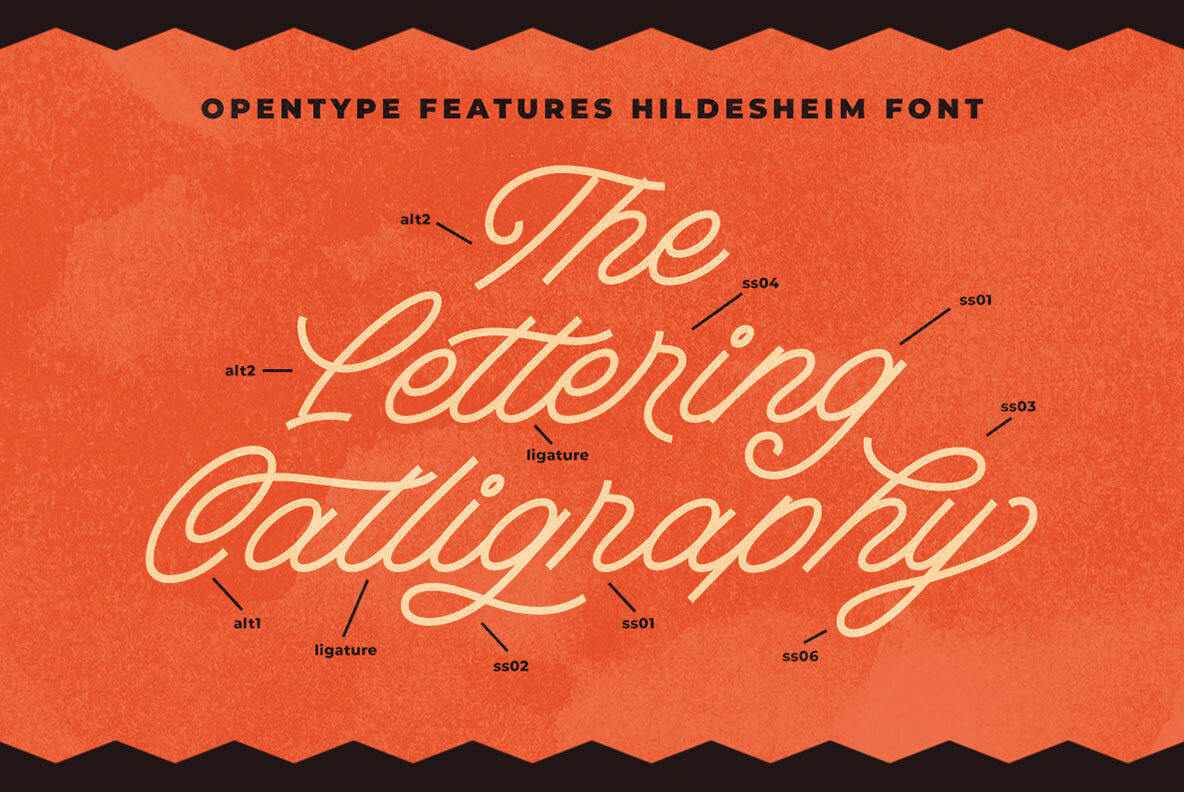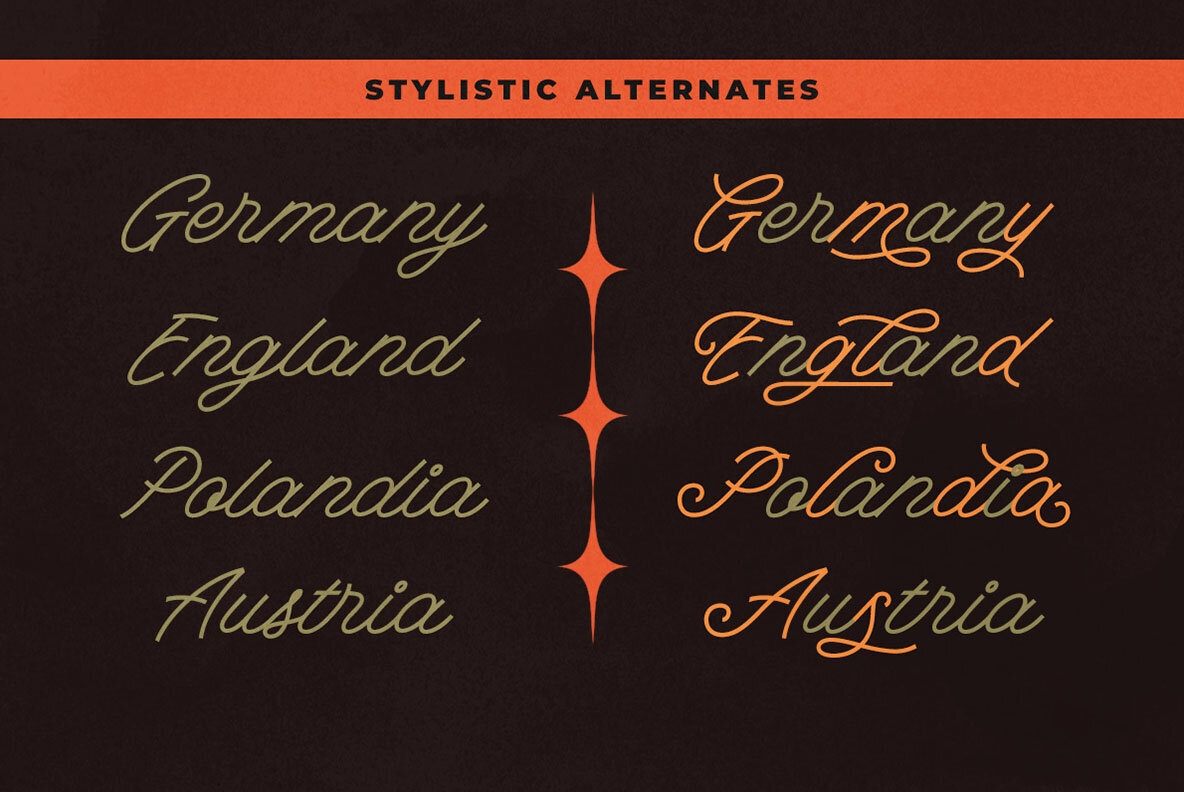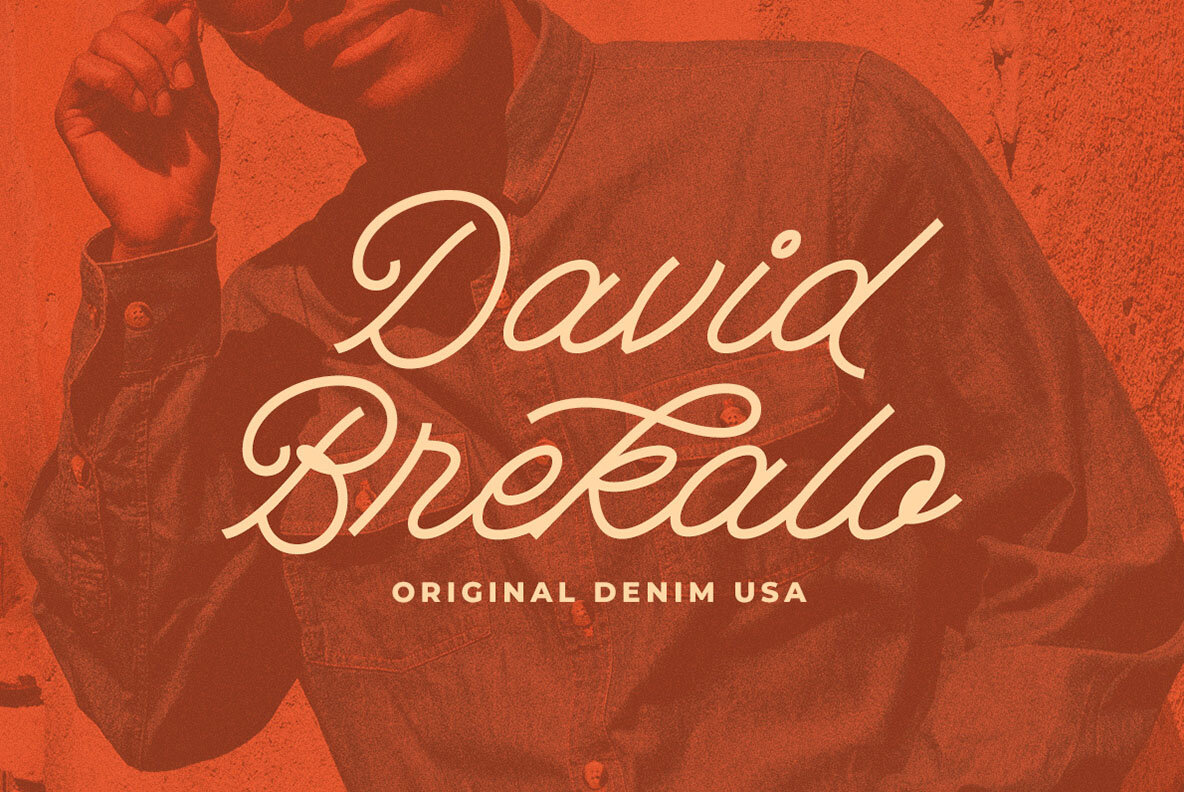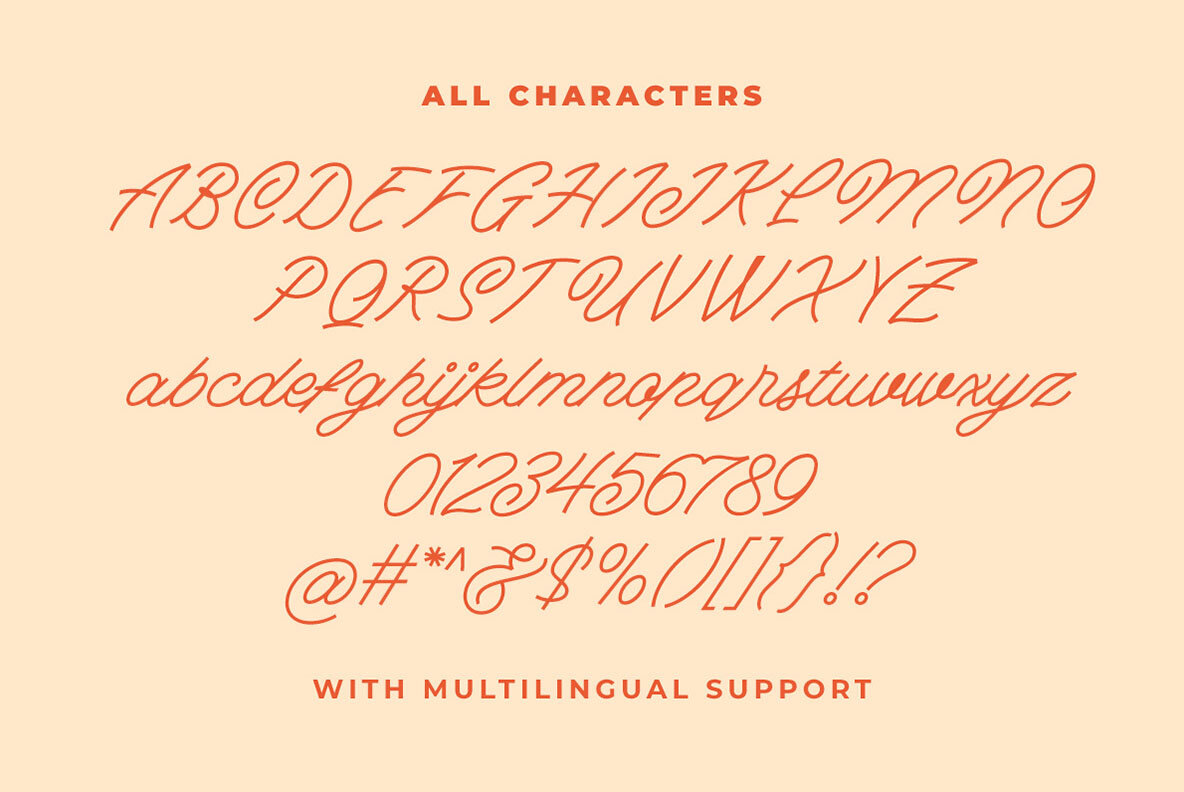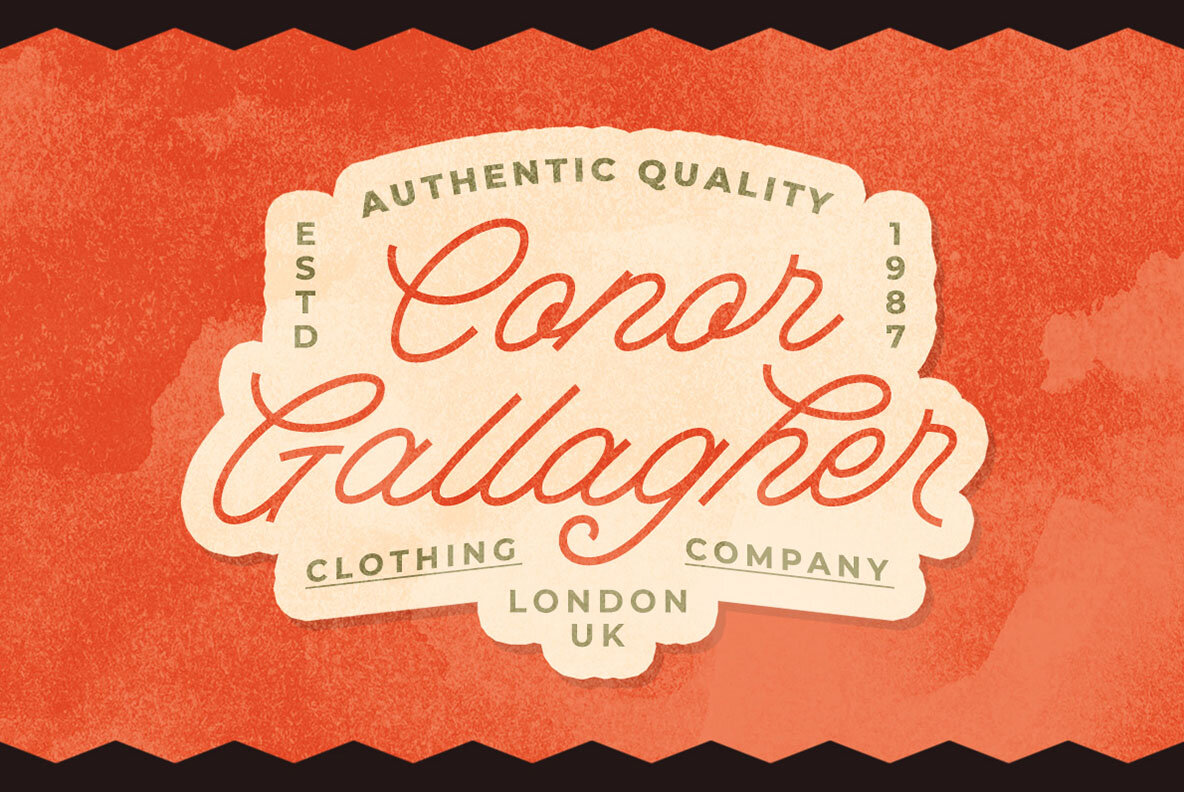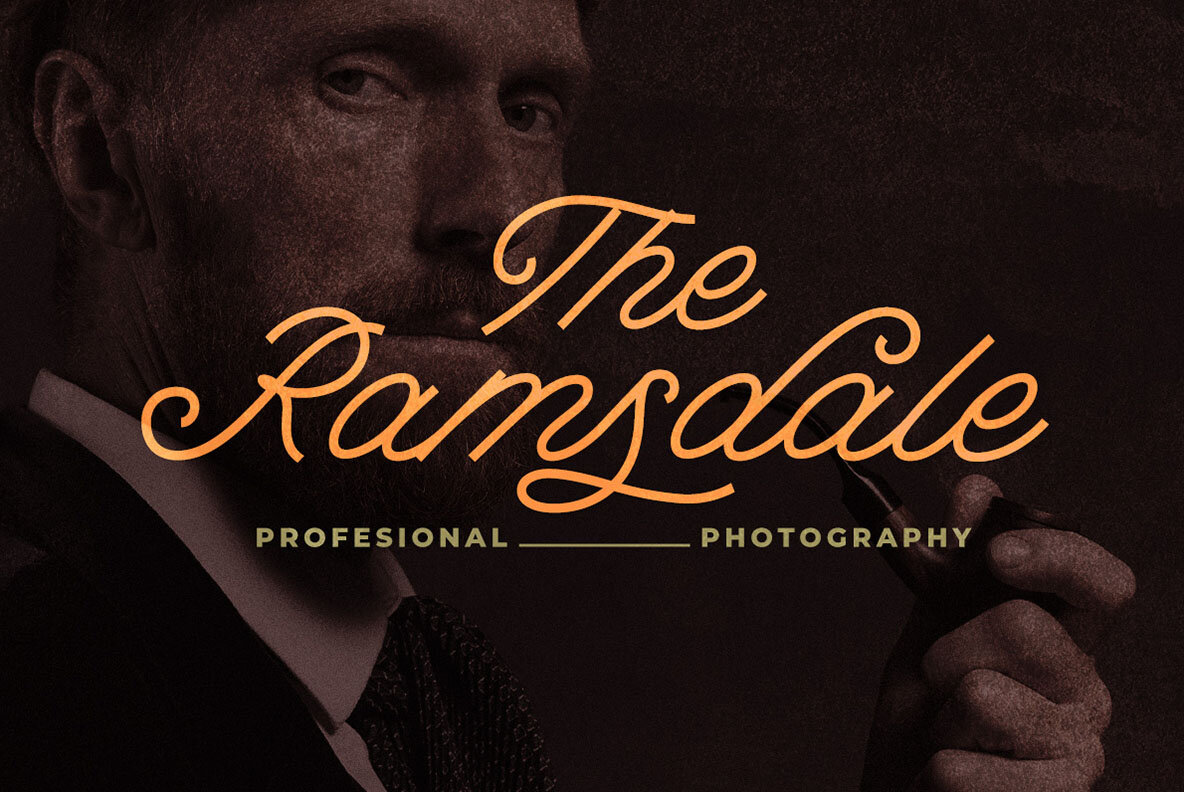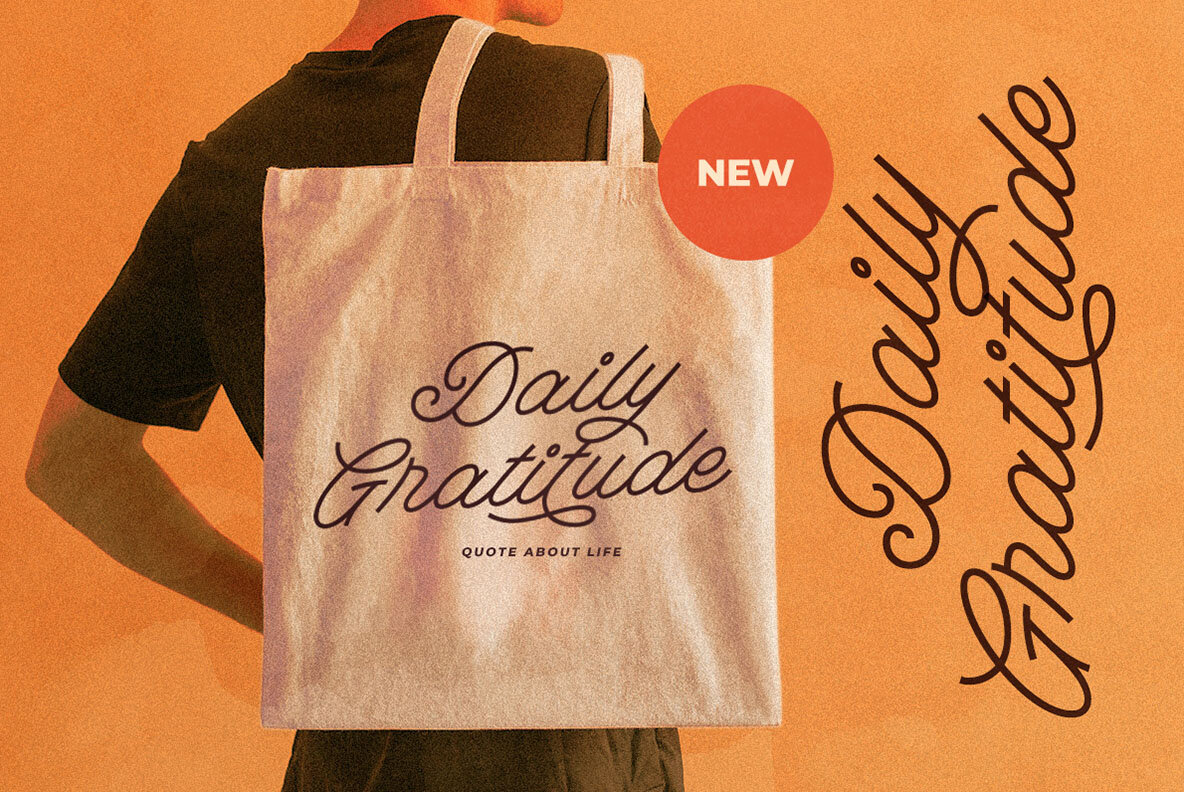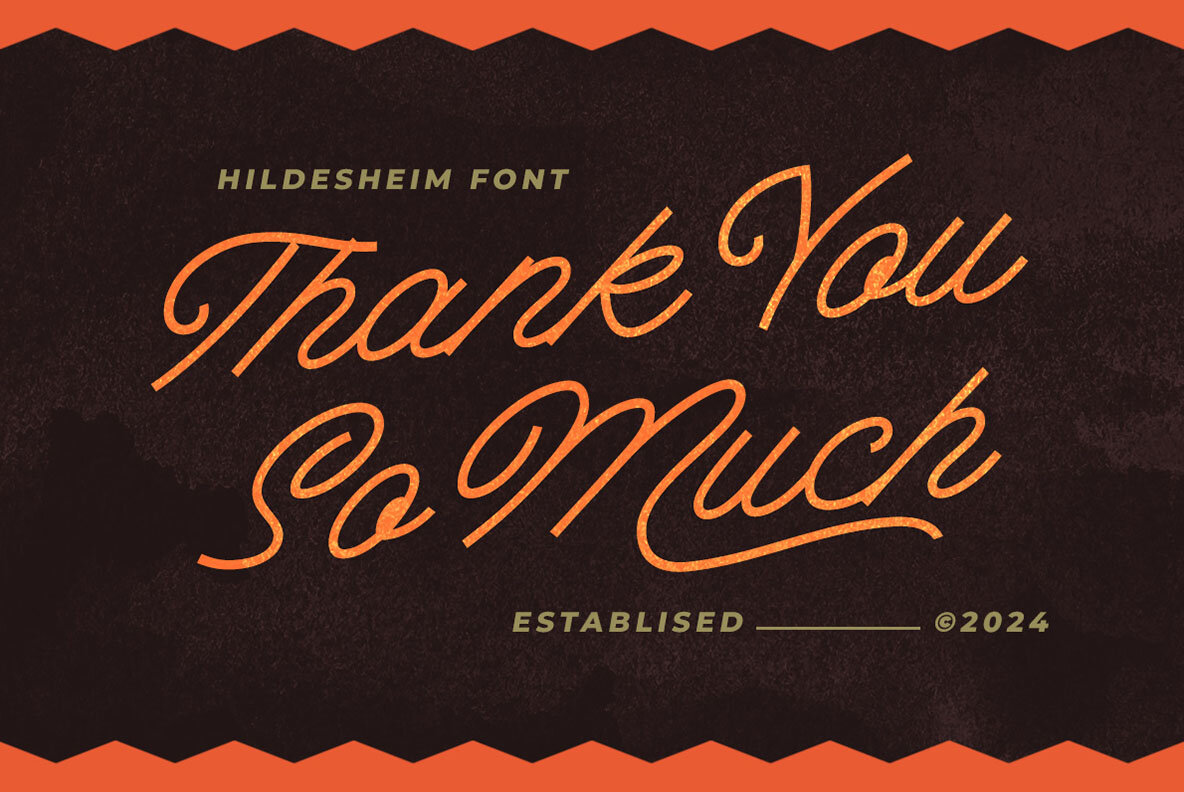
Hildesheim Font
Hildesheim Regular
The Hildesheim is a sophisticated monoline script that seamlessly blends a casual and classic aesthetic. Ideal for a wide range of applications, this font is particularly well-suited for logos, headlines, signage, and formal designs such as invitations, labels, and greeting cards. Whether you're working on magazine layouts, book covers, wedding stationery, fashion and makeup branding, or any advertising project, Hildesheim offers versatile elegance and readability.
This font includes a full set of uppercase and lowercase letters, numerals, punctuation, alternates, and ligatures. It also features multilingual support and is PUA encoded, allowing access to all glyph variations. For the best creative experience, it's recommended to use Hildesheim with software that supports OpenType features and Glyphs panels, such as Adobe Illustrator, Adobe Photoshop, and Corel Draw.